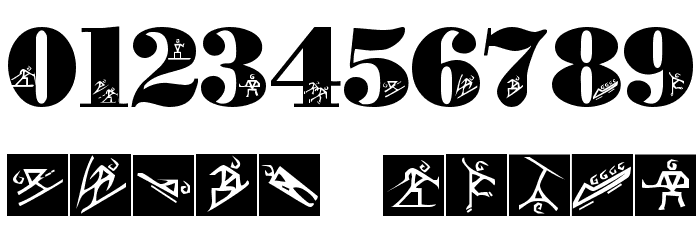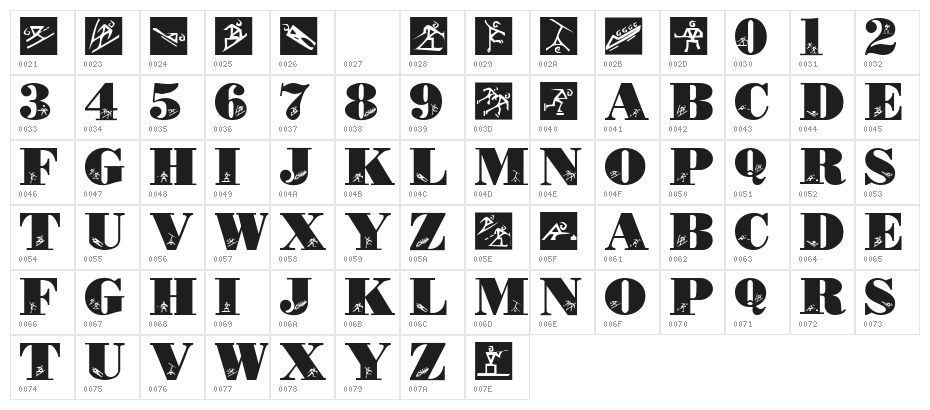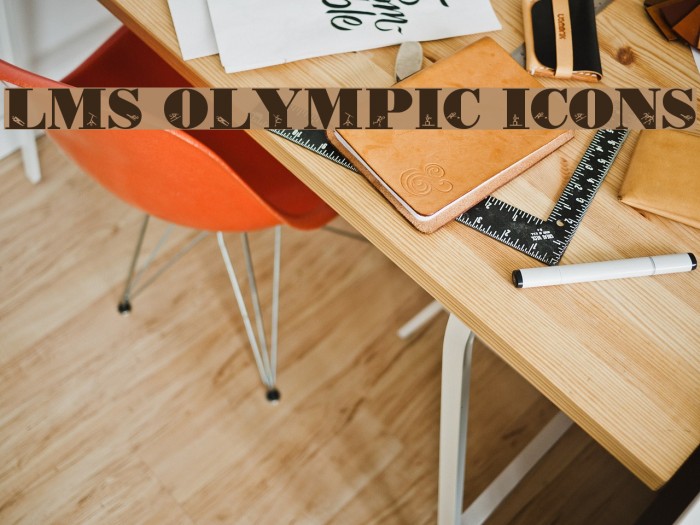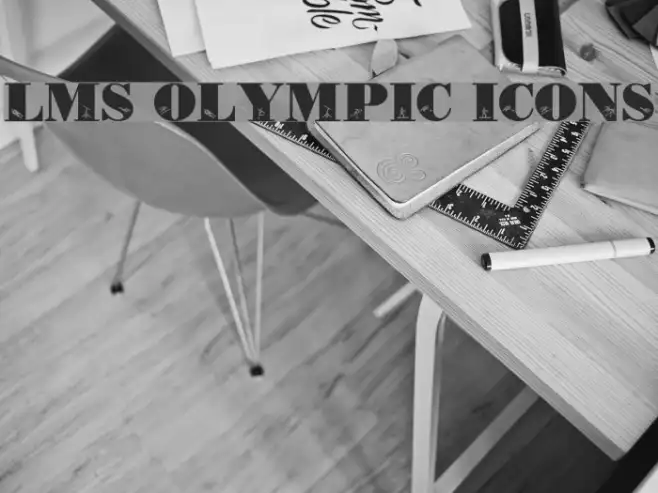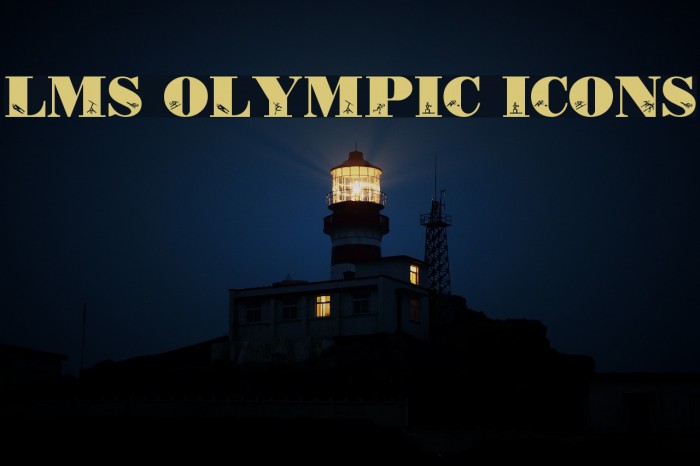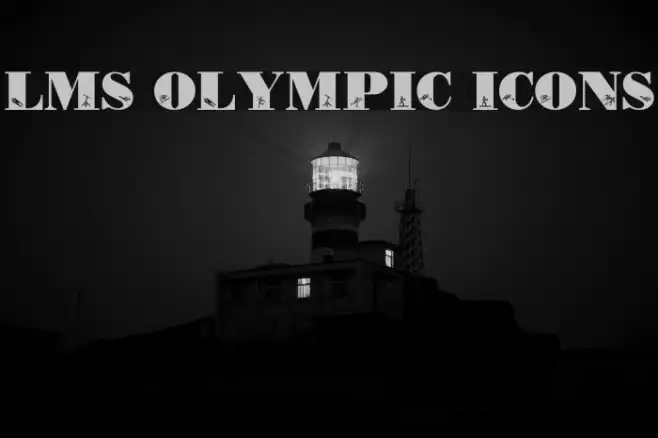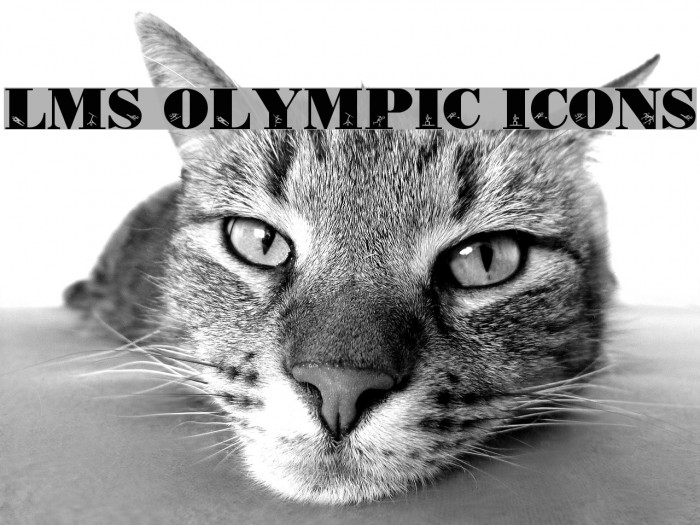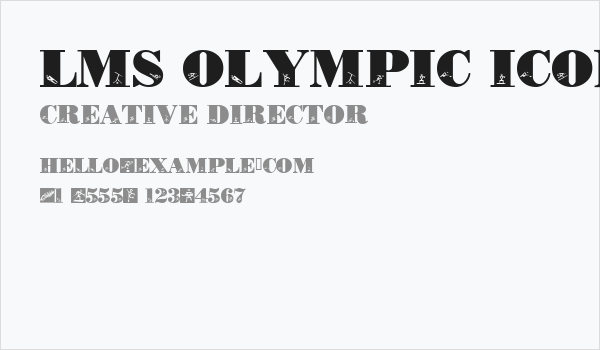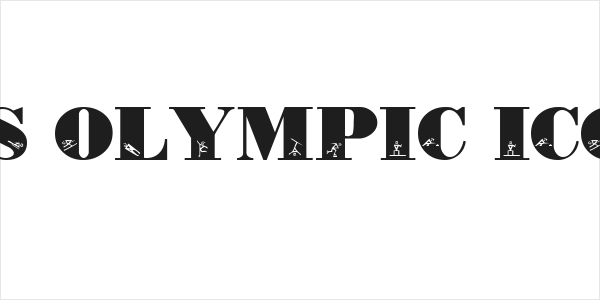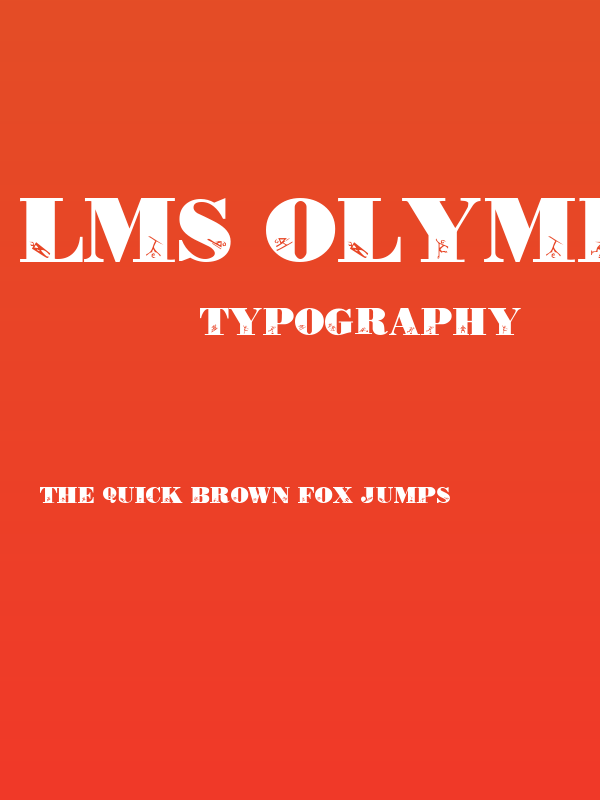
LMS Olympic Icons Font
LMS Olympic Icons Description
This font is a unique blend of bold, decorative lettering with embedded Olympic-themed icons within each character. The uppercase and lowercase letters, as well as numbers, feature various sports symbols, creating a dynamic and energetic appearance. The style is bold and eye-catching, making it ideal for projects that require a sporty or athletic theme. The characters are well-defined with a strong presence, and the integration of icons adds a playful yet sophisticated touch. This font is perfect for capturing the spirit of athleticism and competition.
| Proposed Projects | Ideal for sports event posters, athletic apparel branding, Olympic-themed marketing materials, and dynamic logo designs. |